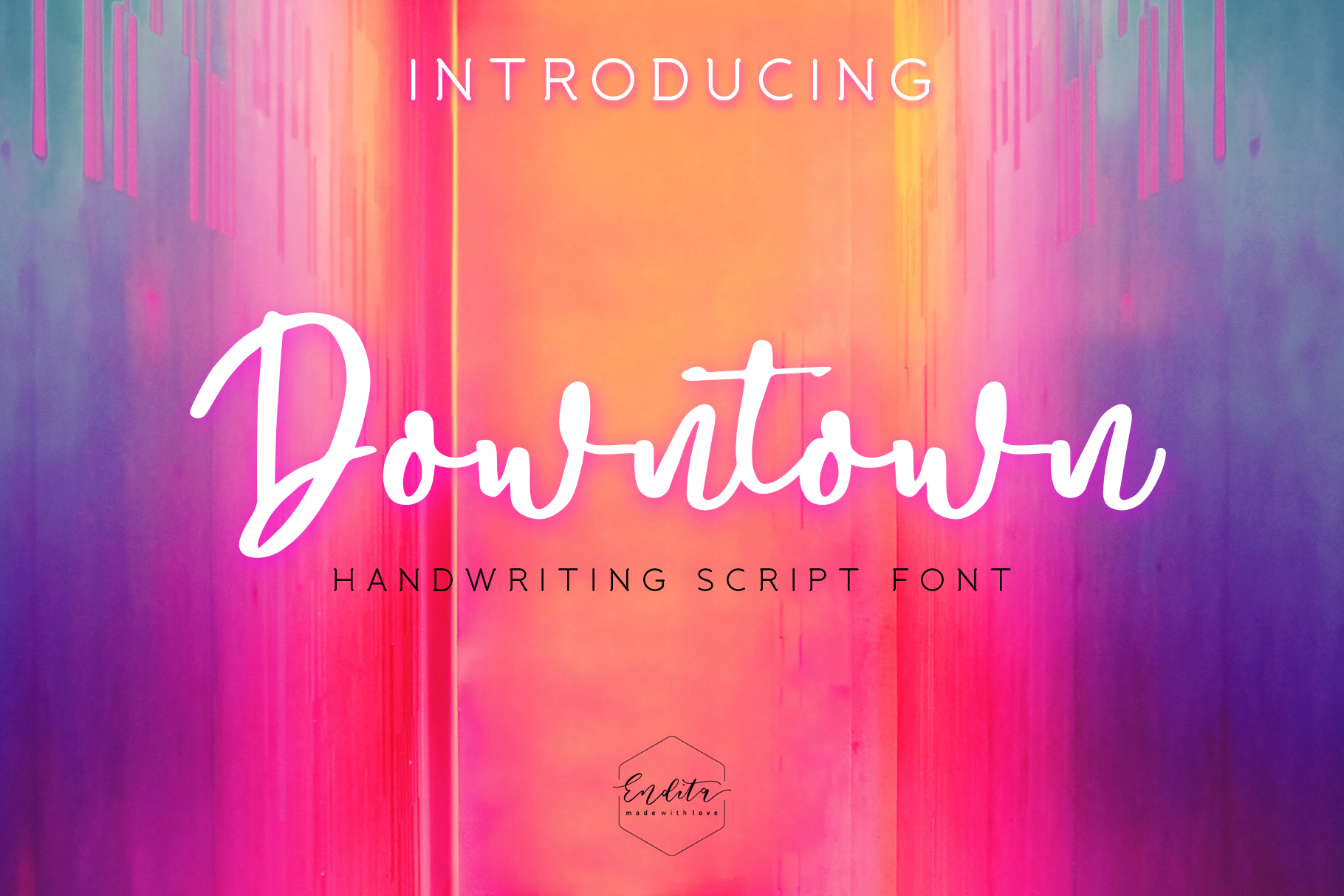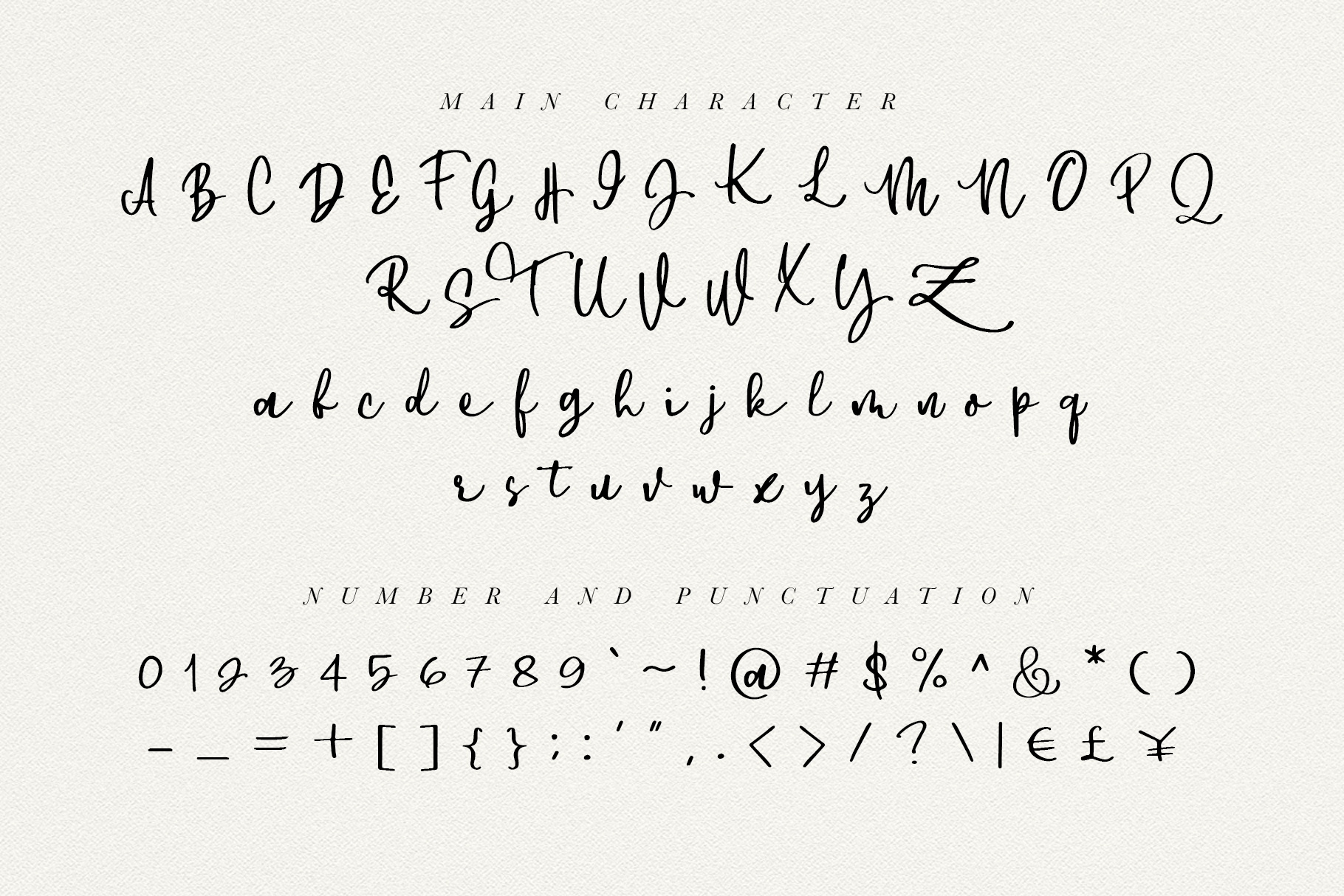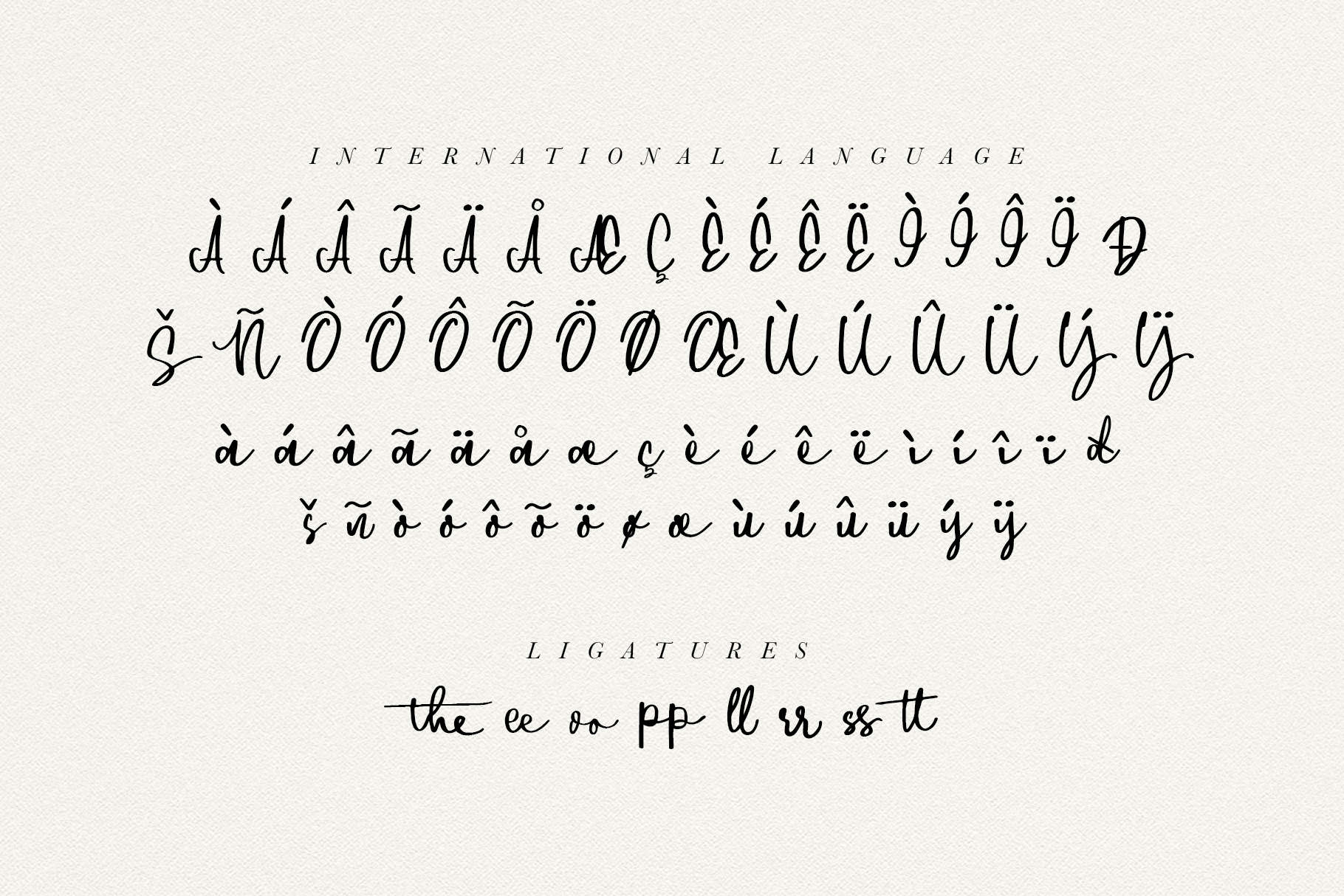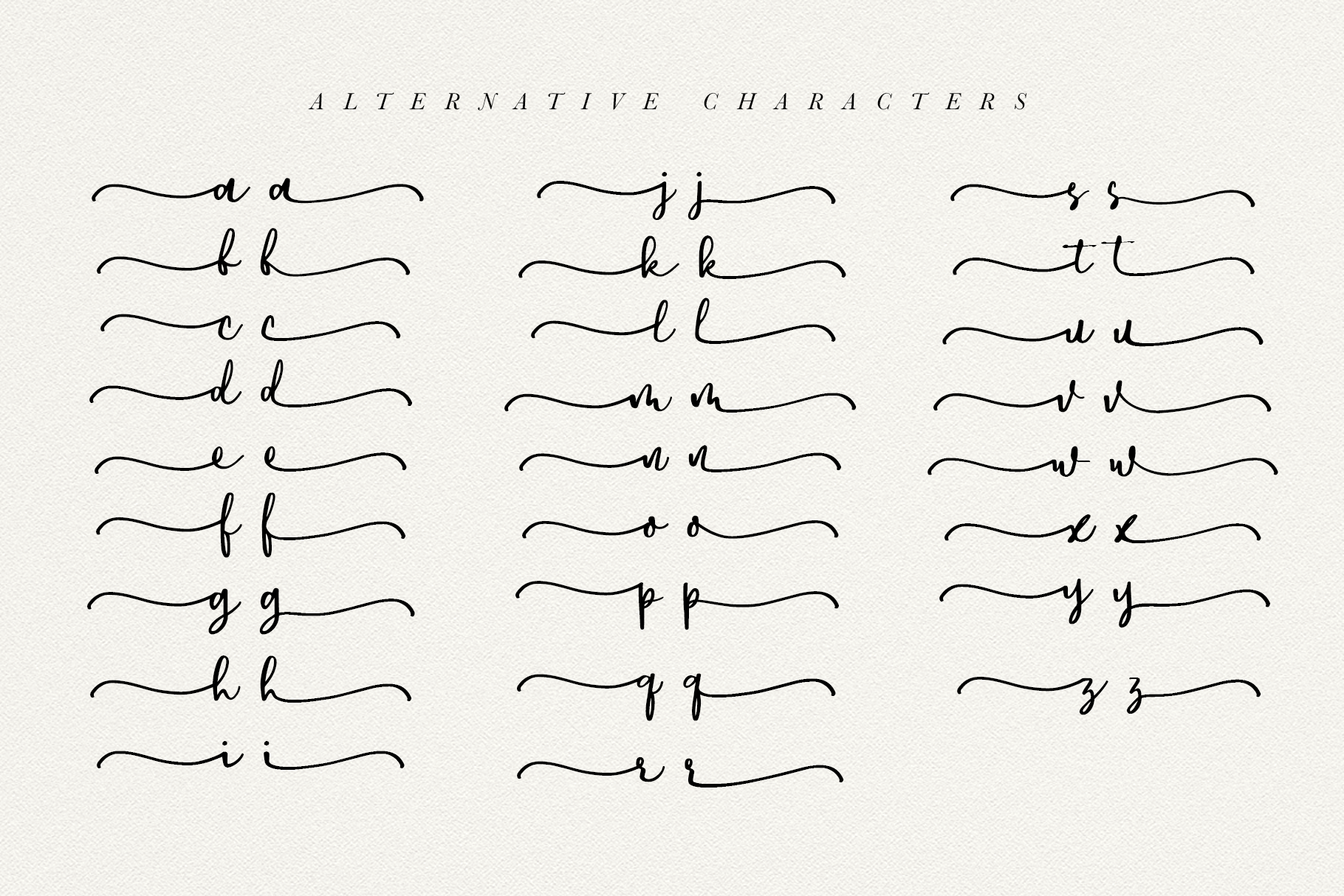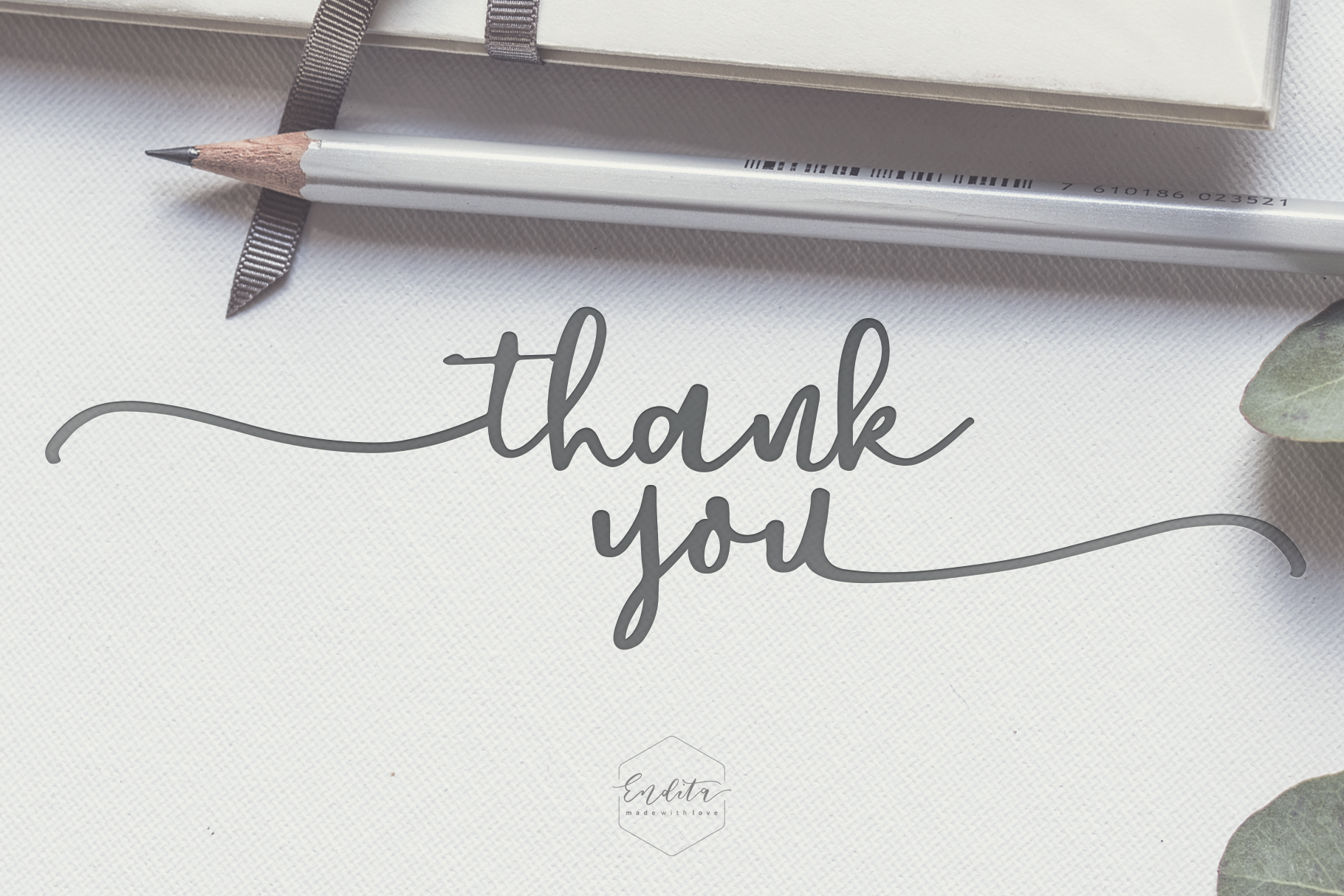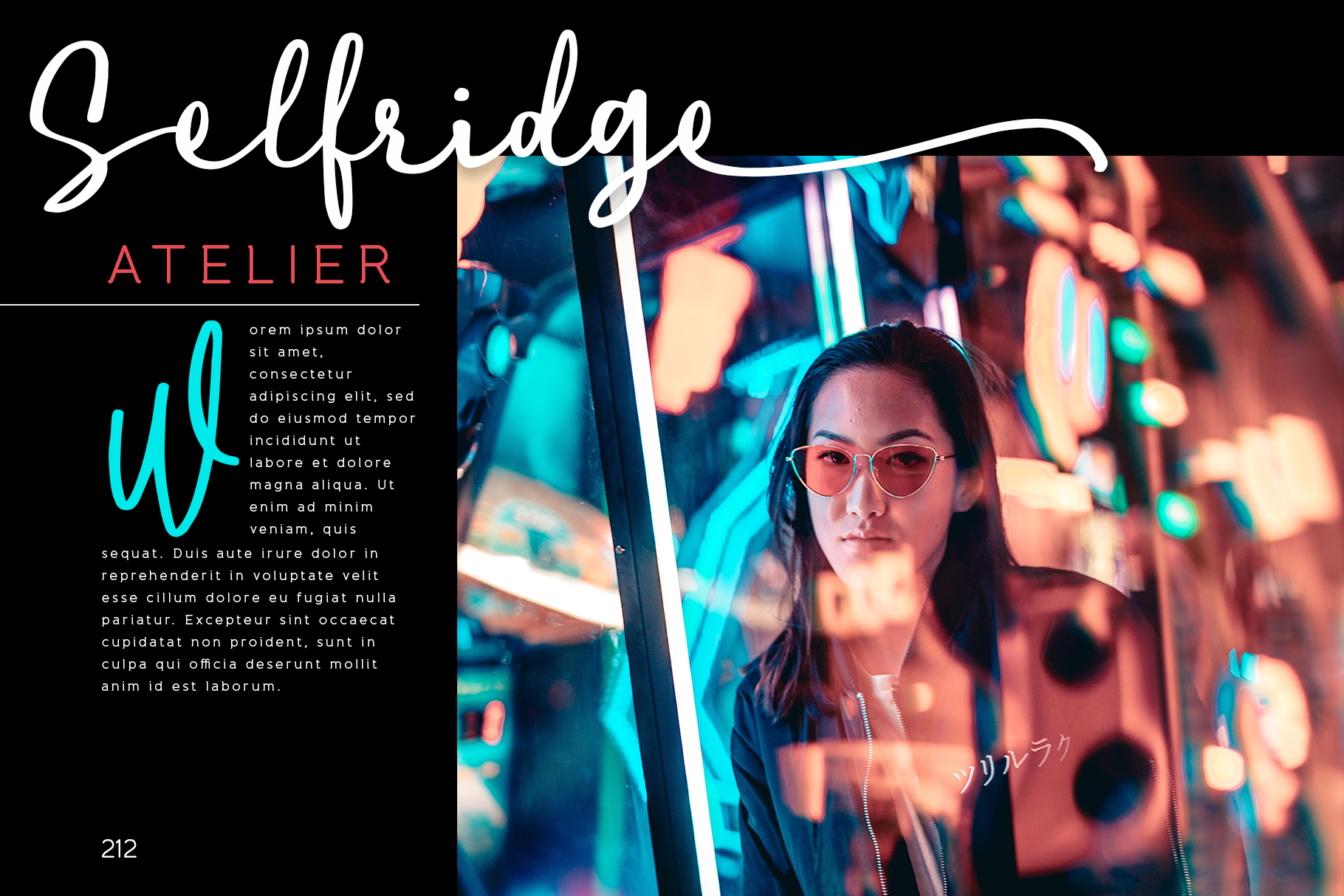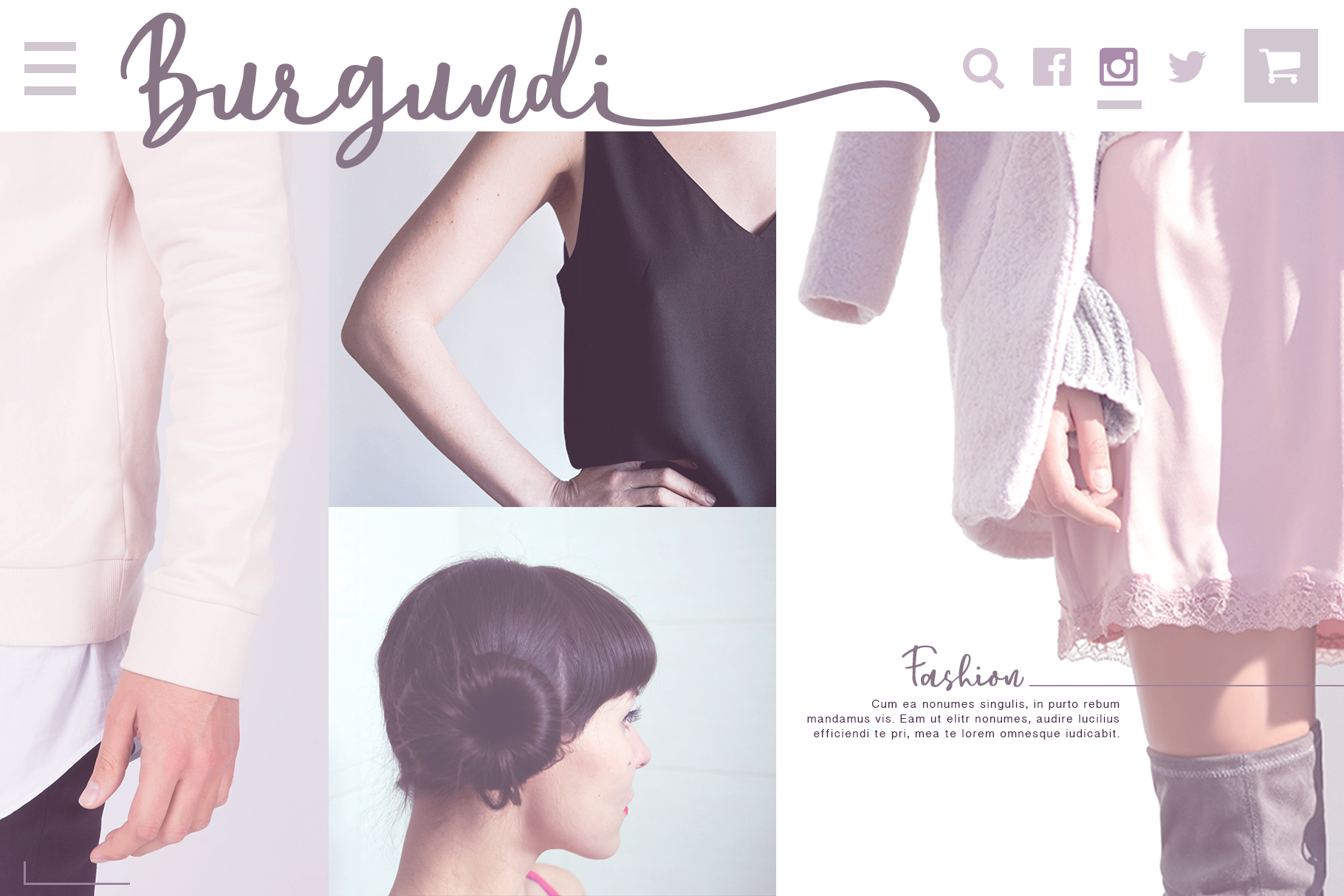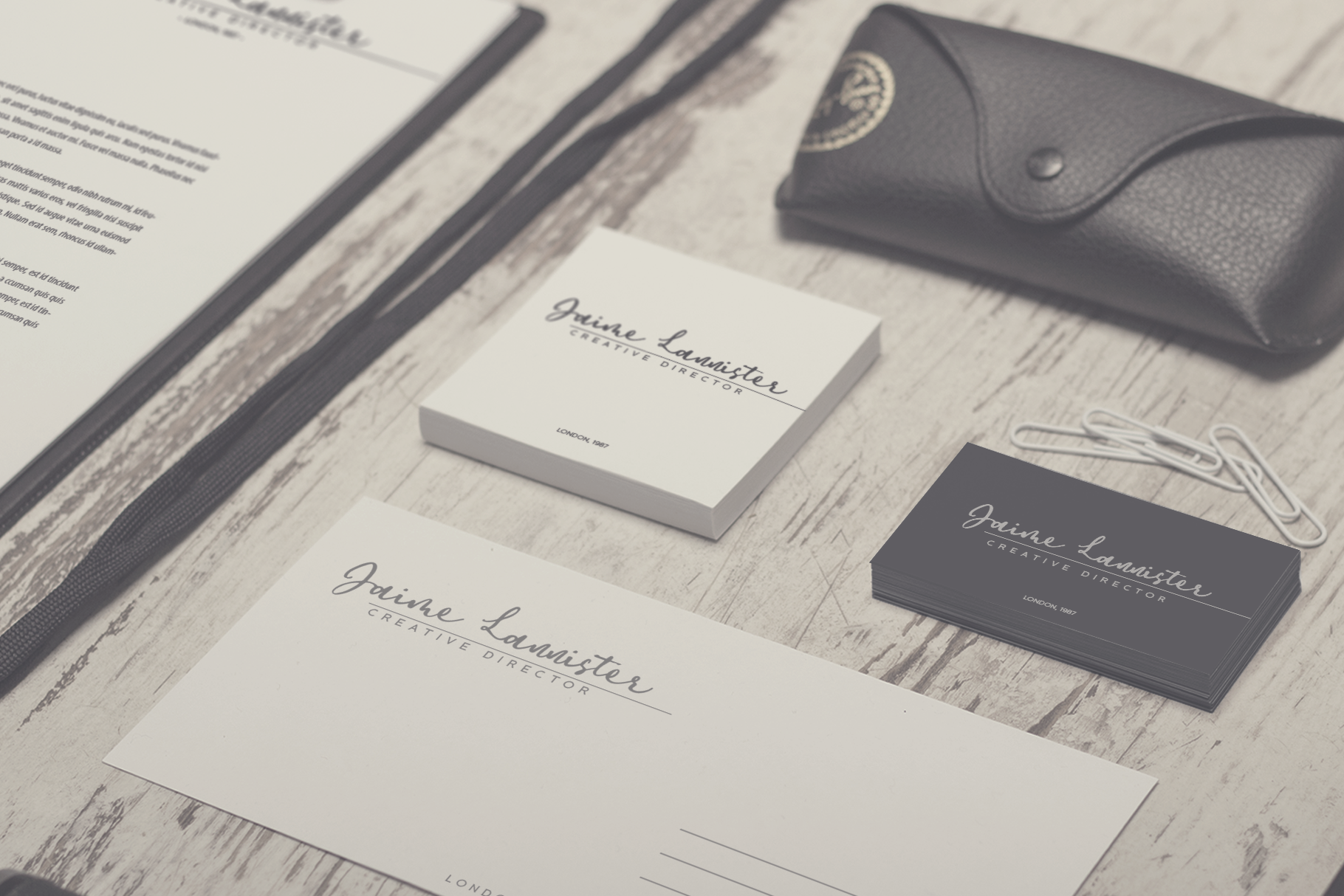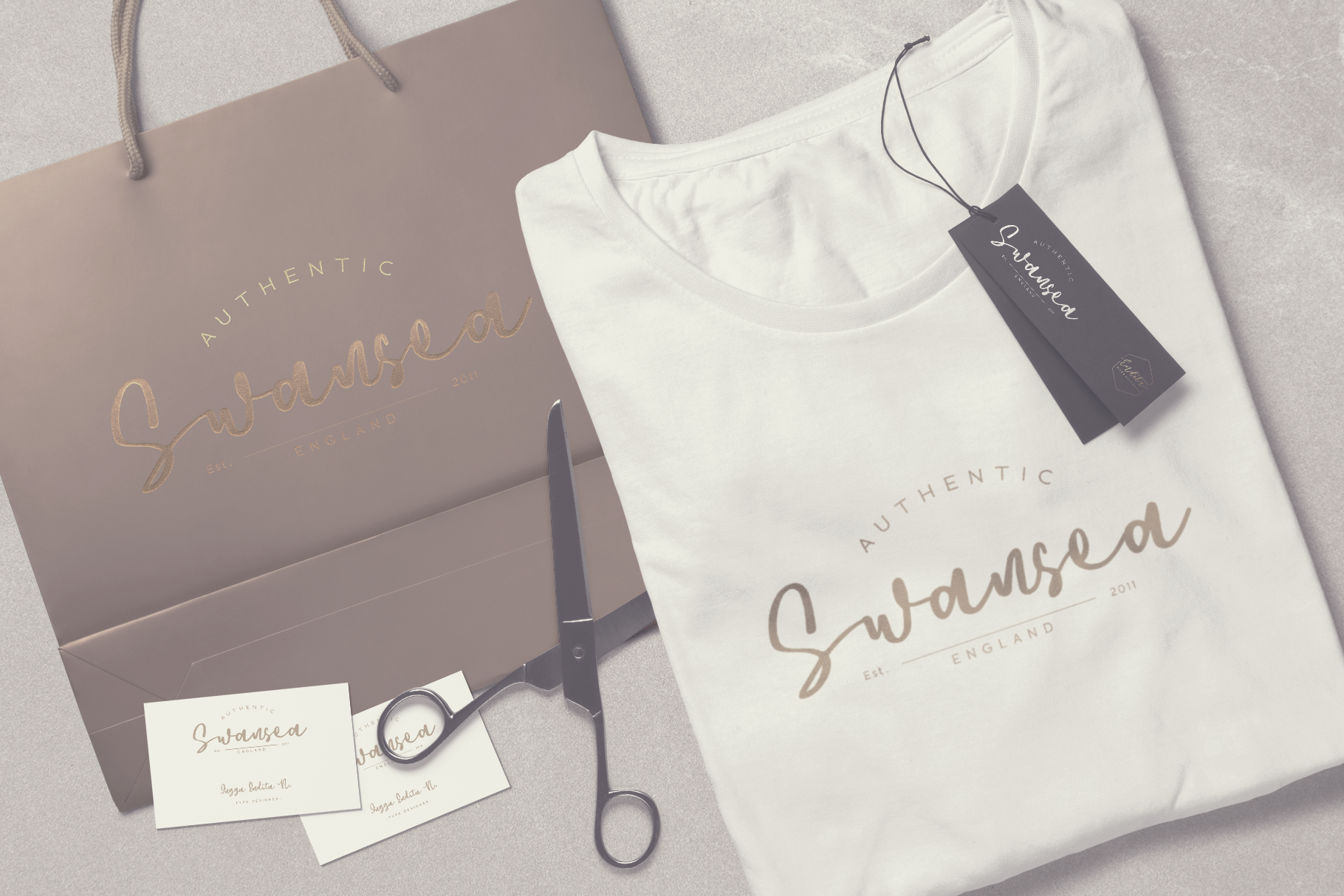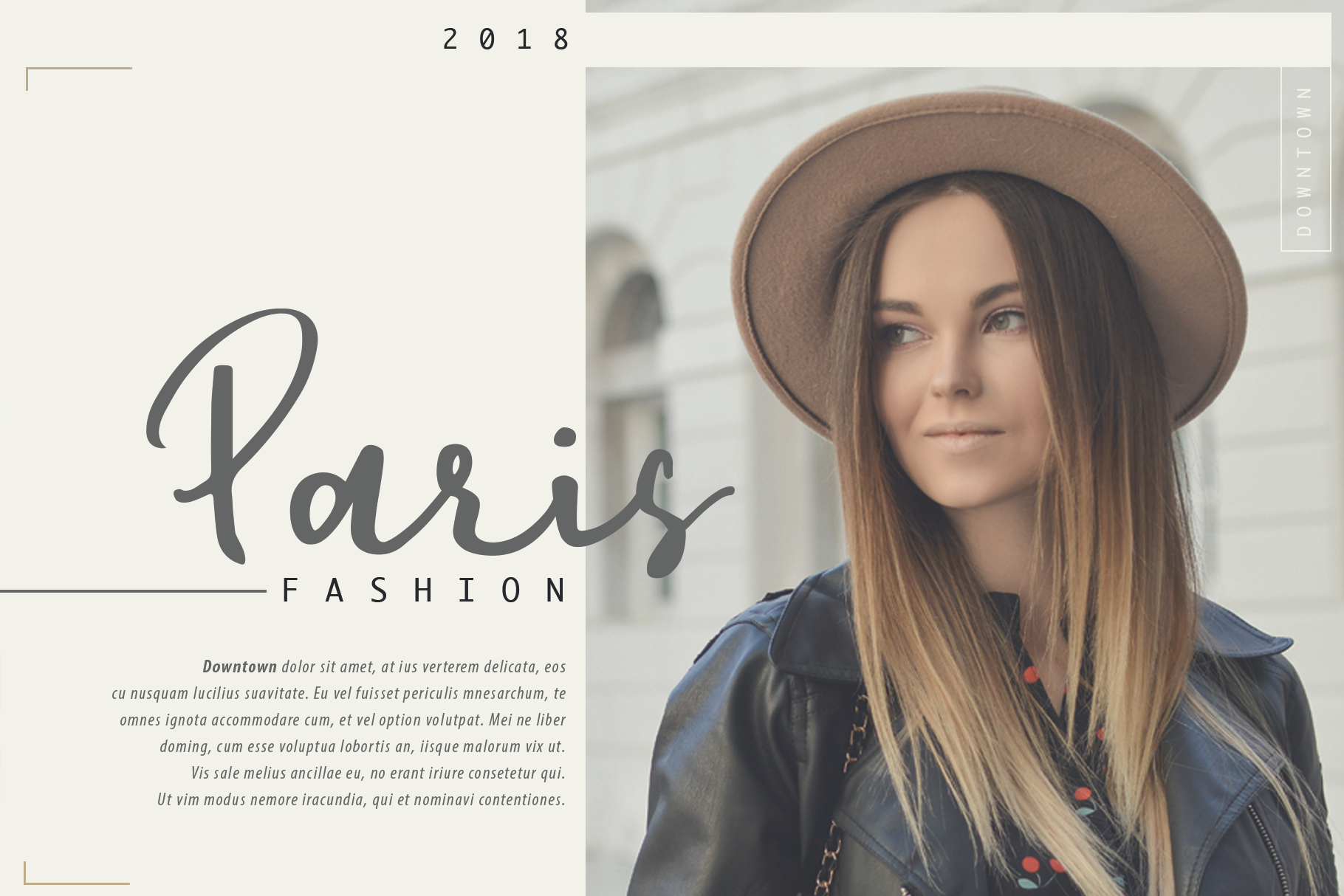
Downtown Font
About Downtown Font
Downtown is stunning naturally made from my hand-lettered calligraphy. This is a wonderful and cute font that looks great for fashion designs and editorial projects.